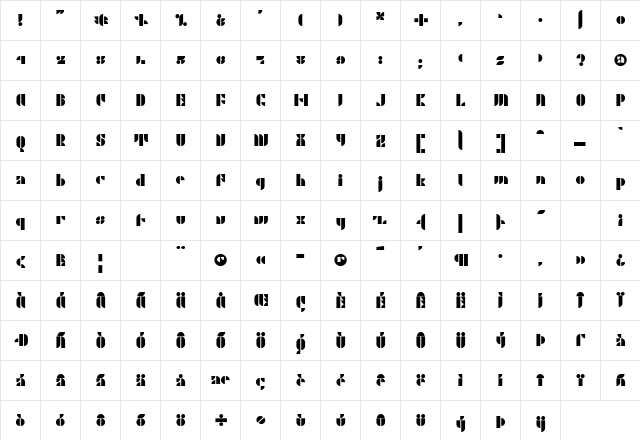
P22 Albers 2 Regular
| Foundry | P22 type foundry |
| Designer | Josef Albers, Richard Kegler |
Design Context for P22 Albers 2 Typeface
P22 Albers 2 is a composed and adaptable typeface that performs quietly and consistently across a wide range of design contexts.